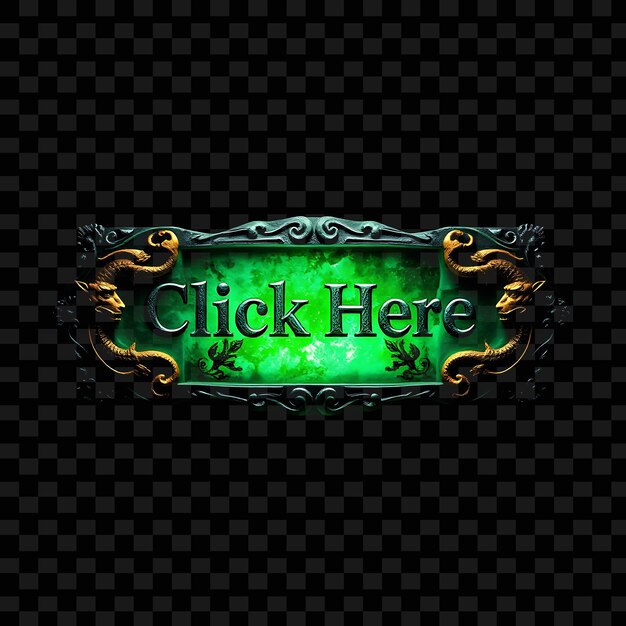
effect click here text in a carved stone font illuminated from within like hidden treasure decora
Effect click here text in a carved stone font illuminated from within like hidden treasure decora